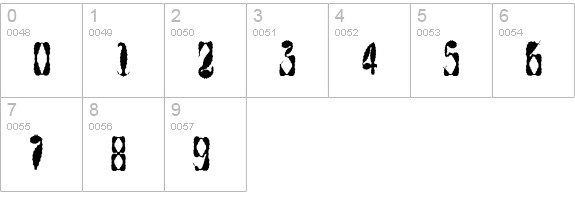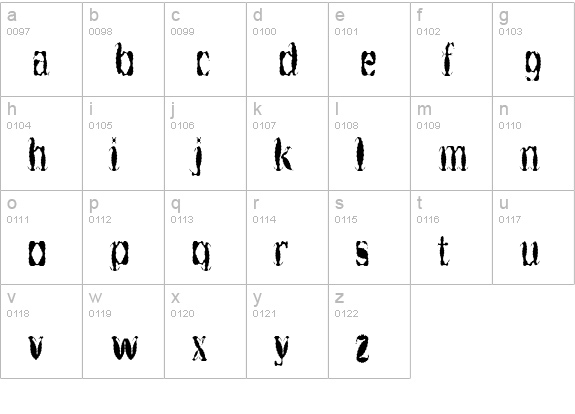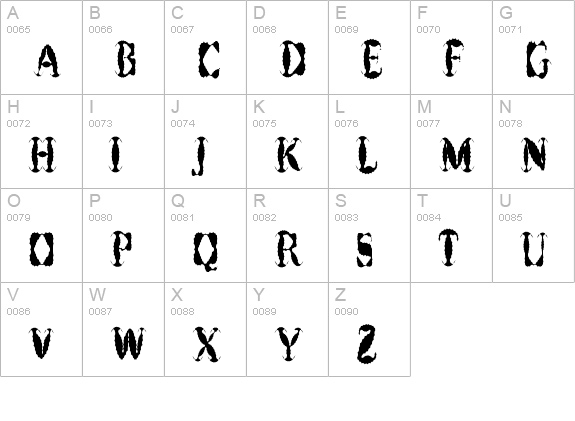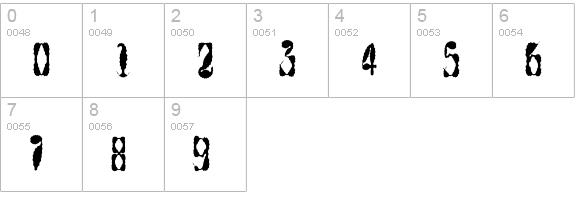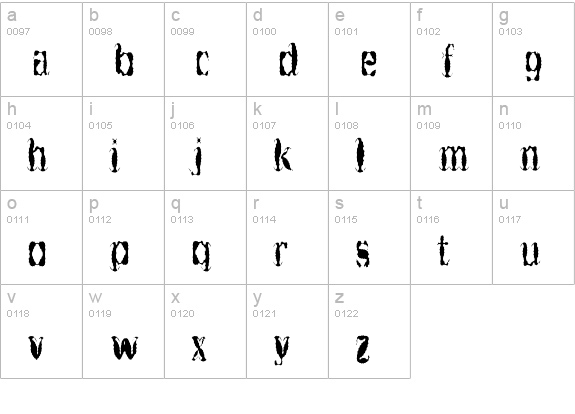
Get Burnt Font Details
Get Burnt font is a unique and edgy typeface that is perfect for projects that require a bold and daring look. With its rough and rugged appearance, this font exudes a sense of rebelliousness and creativity. The uneven edges and distressed texture of Get Burnt font give it a raw and authentic feel, making it stand out from other fonts. Best of all, Get Burnt font is available for free download at FontsMarket.com. This means that you can easily access this eye-catching font and use it in your designs without any cost. Whether you're working on a poster, flyer, logo, or any other creative project, Get Burnt font is sure to make a bold statement and leave a lasting impression. Download Get Burnt font today and add a touch of attitude to your designs!